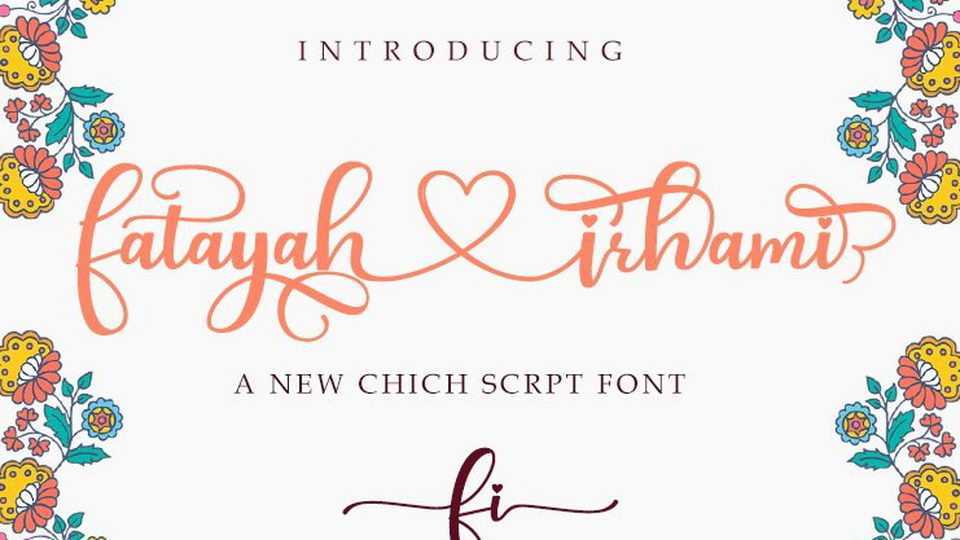
Fatayah Irhami Script Font › Fontesk
Download Fatayah Irhami font, a beautiful and chic modern calligraphy script that is suitable for branding, wedding invitations, Valentine’s cards and other romantic design.